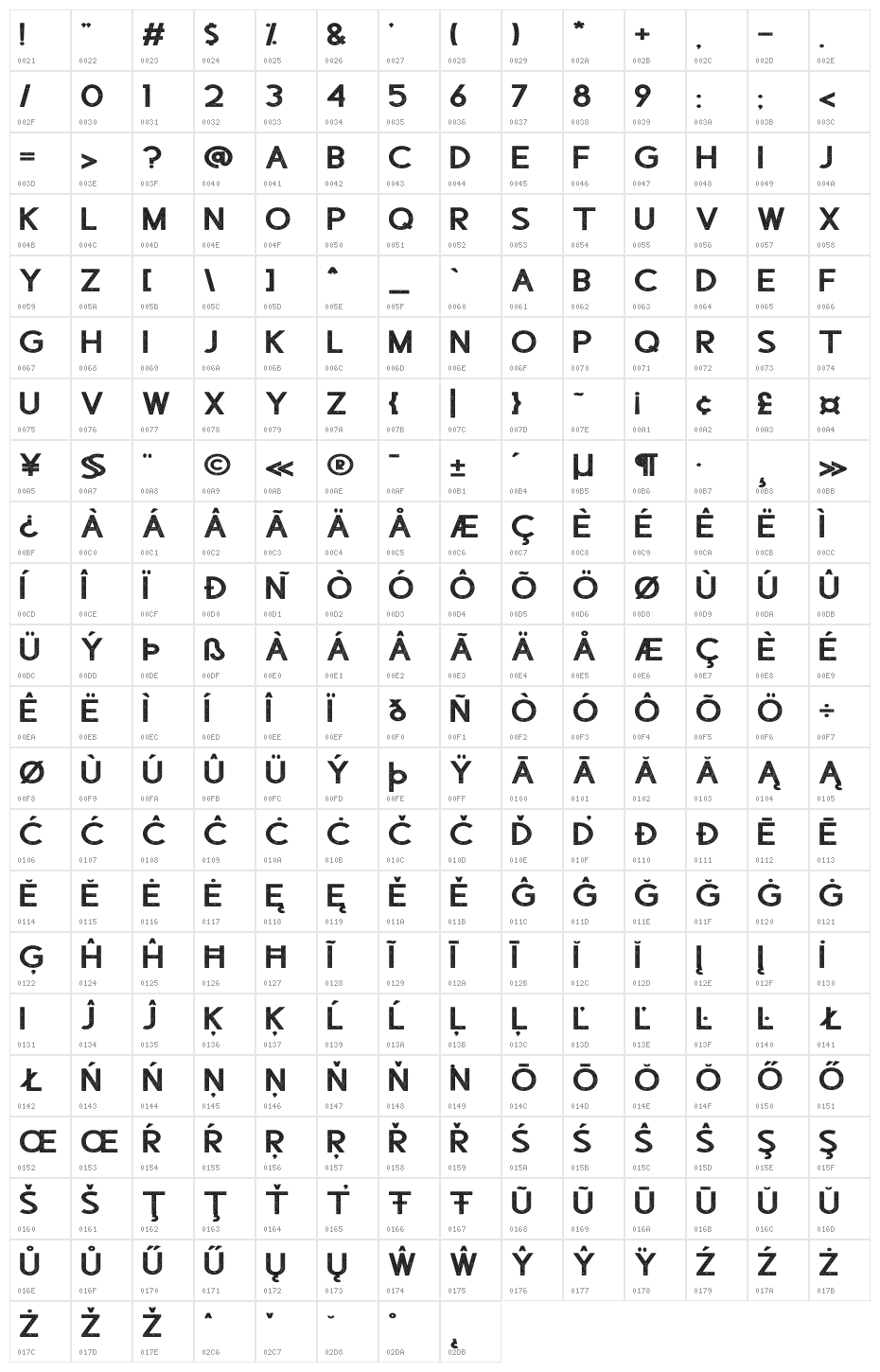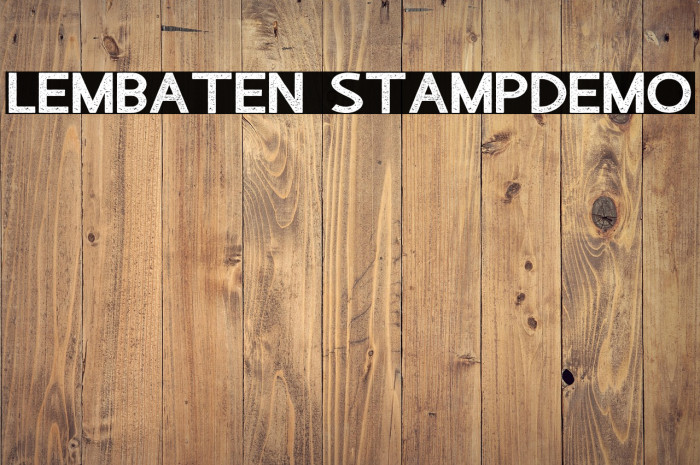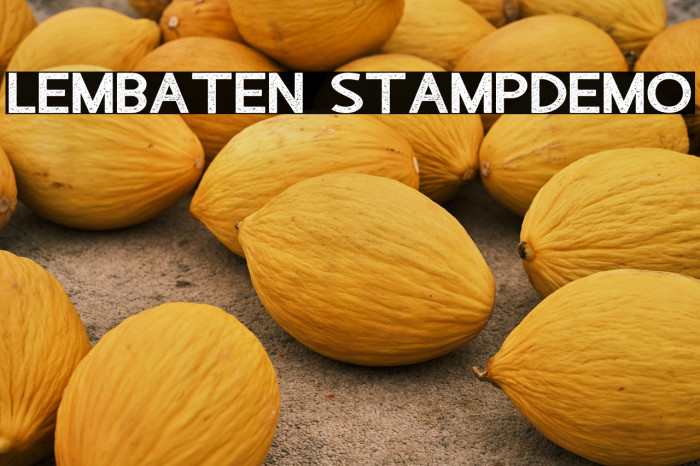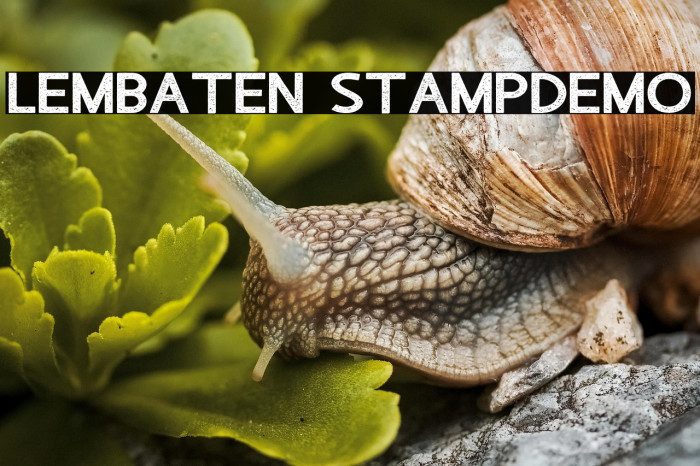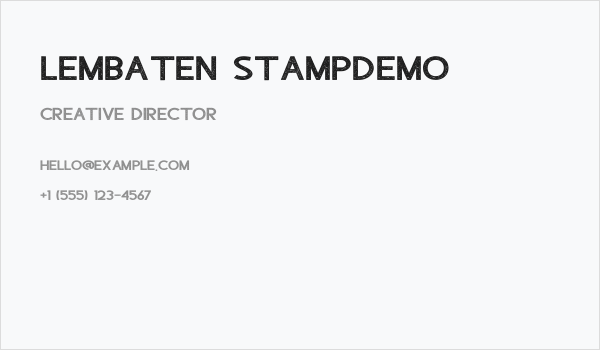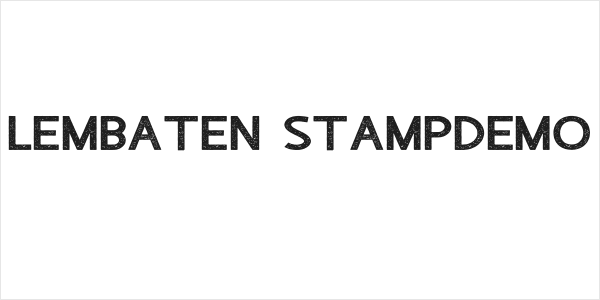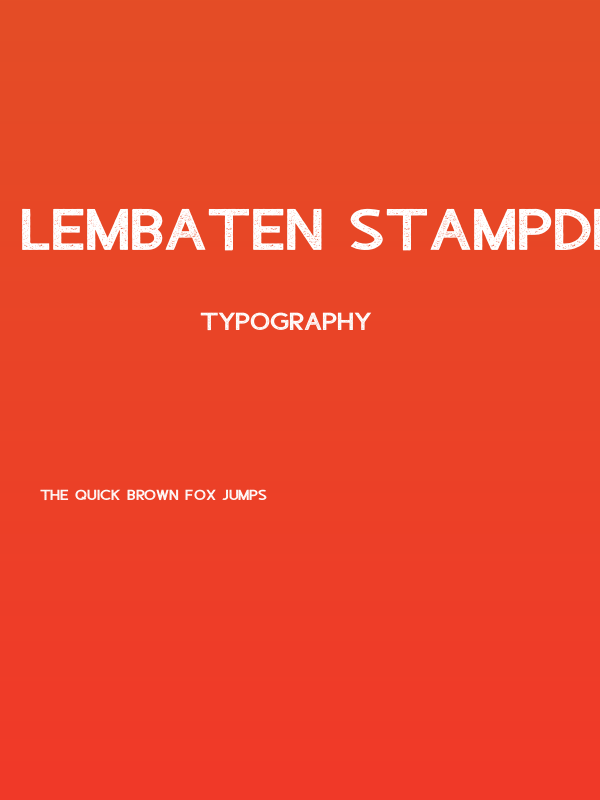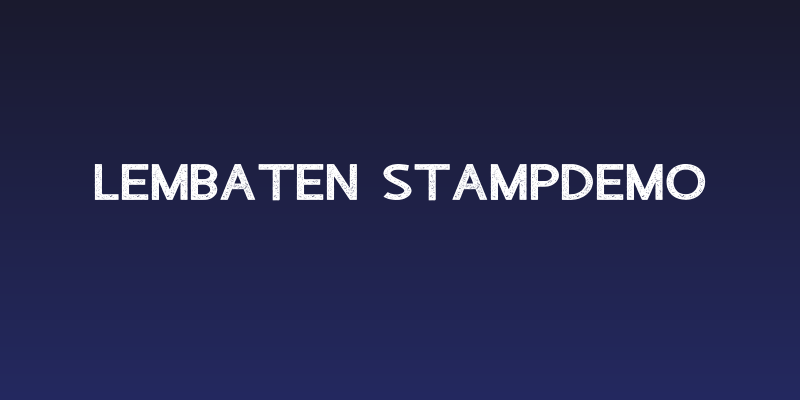
Lembaten StampDemo Font
Lembaten StampDemo Description
This font features a bold, textured style reminiscent of vintage rubber stamps. Each character is filled with a distressed pattern, giving it a rugged and worn appearance. The uppercase letters are uniform in height, with a slightly condensed width that adds to its compact look. The numbers and special characters maintain the same distressed texture, ensuring consistency across all glyphs. This font's unique style makes it stand out, offering a nostalgic yet modern feel that can be both eye-catching and versatile.
| Proposed Projects | Ideal for projects that require a vintage or industrial feel, such as posters, branding, packaging, and event invitations. |